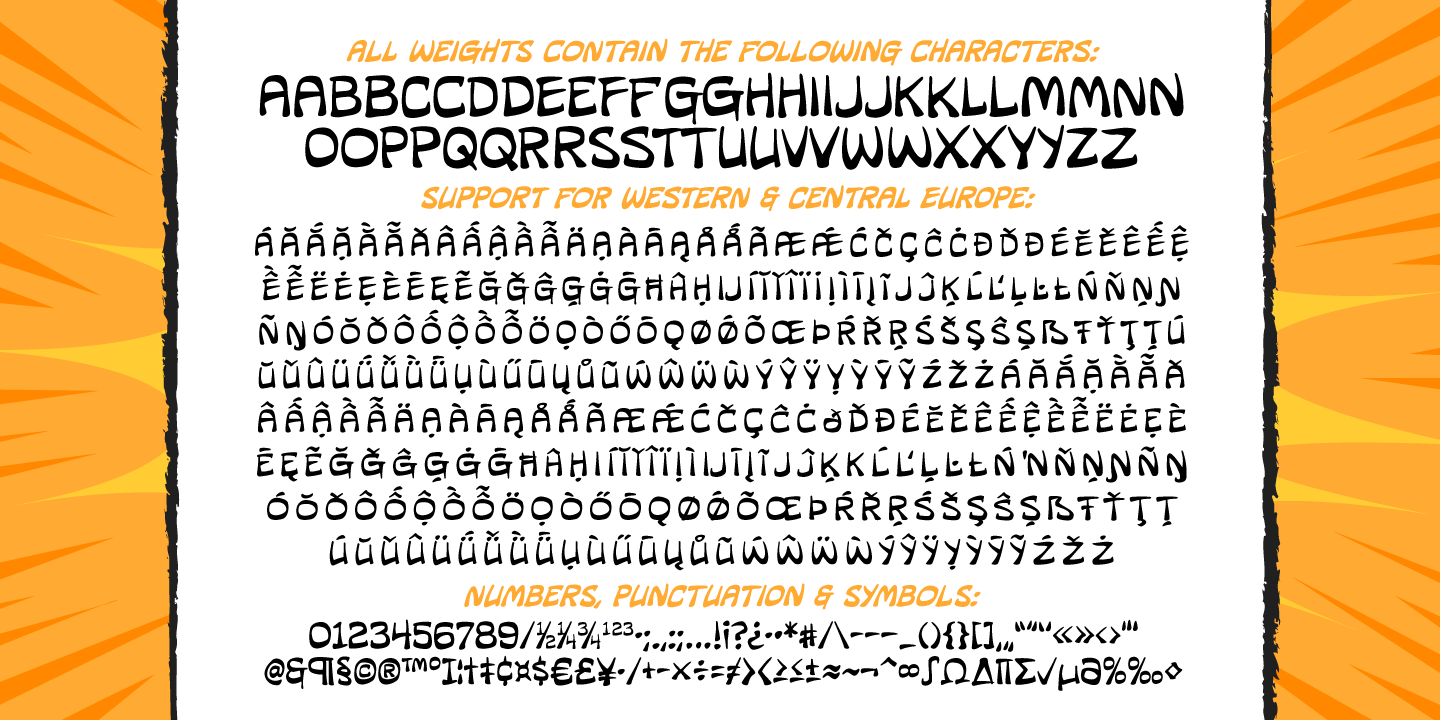
Hammer Horror Font is ideal for classic horror design projects including vintage horror film titles, gothic horror theater productions, classic monster movie promotions, retro horror gaming interfaces, vintage horror comic books, classic horror film festivals, atmospheric horror venues, and nostalgic monster entertainment campaigns. This chilling typeface excels in vintage horror movie theaters, classic monster merchandise, gothic horror bookstores, retro horror gaming companies, and projects that celebrate the golden age of horror cinema and classic monster entertainment.
What makes Hammer Horror Font exciting is its classic gothic character that perfectly captures the essence of vintage horror cinema and atmospheric monster movies. The font features dramatic letterforms with classic horror styling that reflects the theatrical grandeur and spine-chilling atmosphere of golden age horror films. Its vintage design elements embody the spirit of classic monster movies and gothic storytelling, making it perfect for projects that need to convey atmospheric terror, vintage charm, and connection to classic horror heritage. The carefully crafted gothic details create an atmosphere of vintage horror sophistication and classic monster authenticity.
Hammer Horror Font comes in multiple family variations including gothic, vintage, atmospheric, and classic styles. Each weight maintains the distinctive horror character while offering different levels of gothic intensity and vintage presence. The font family includes horror alternates, gothic ligatures, and vintage variations that provide designers with comprehensive options for creating truly atmospheric and authentically classic typographic compositions that celebrate vintage horror excellence.